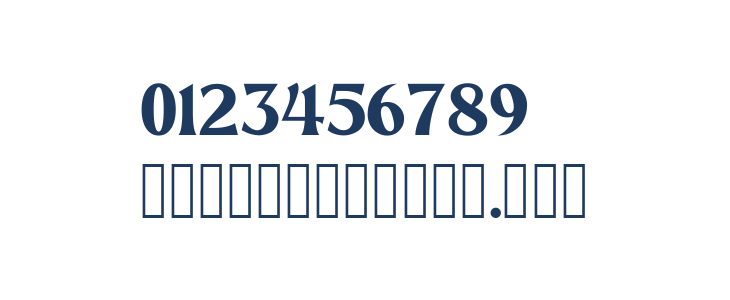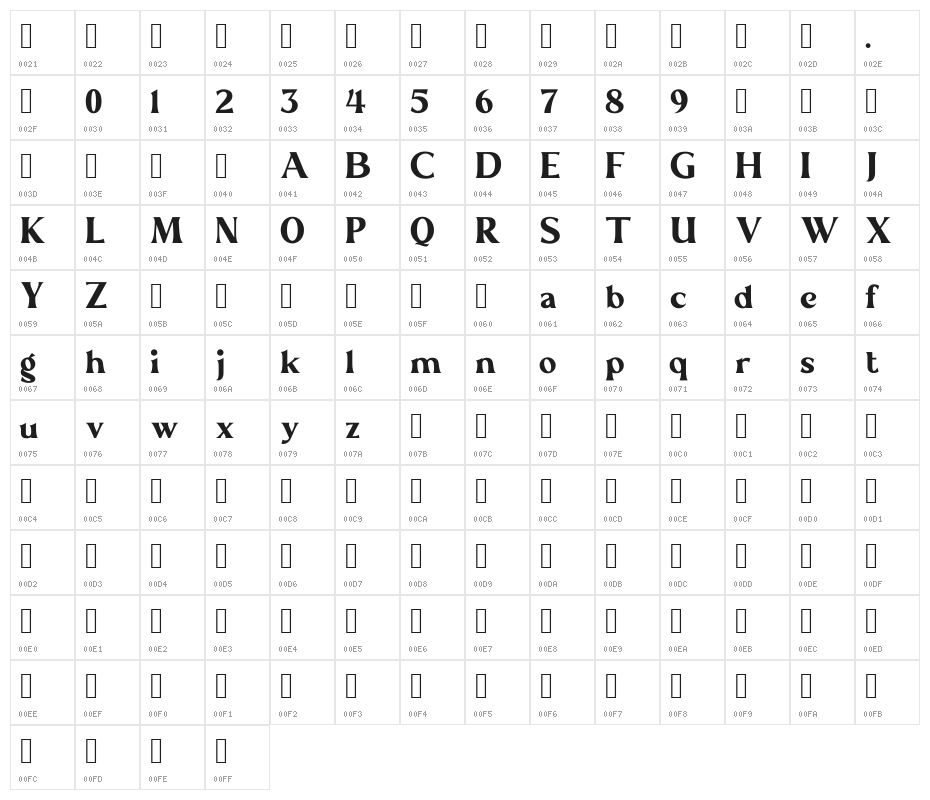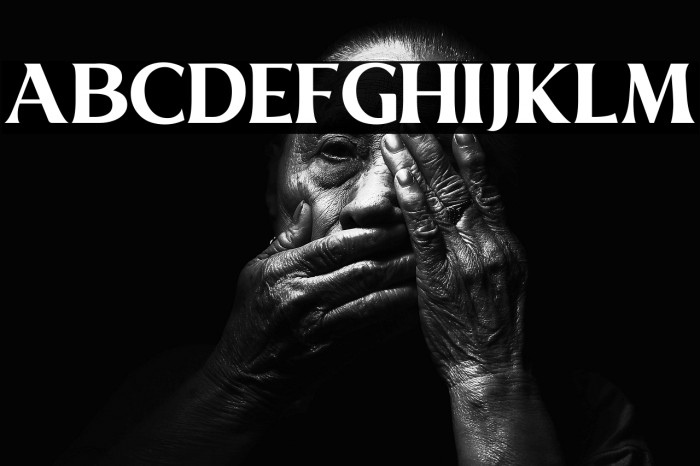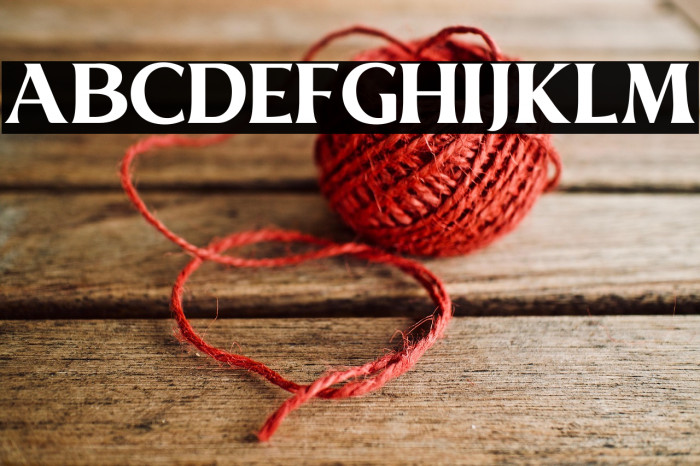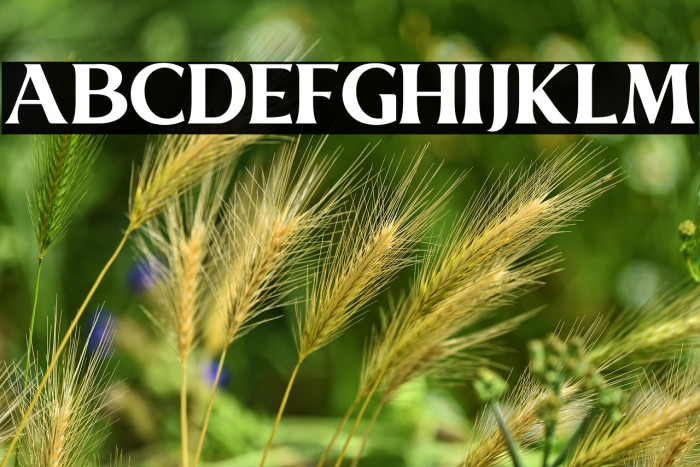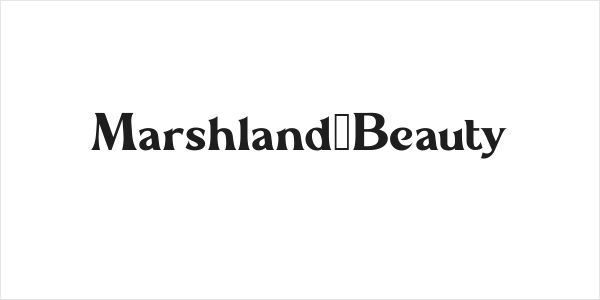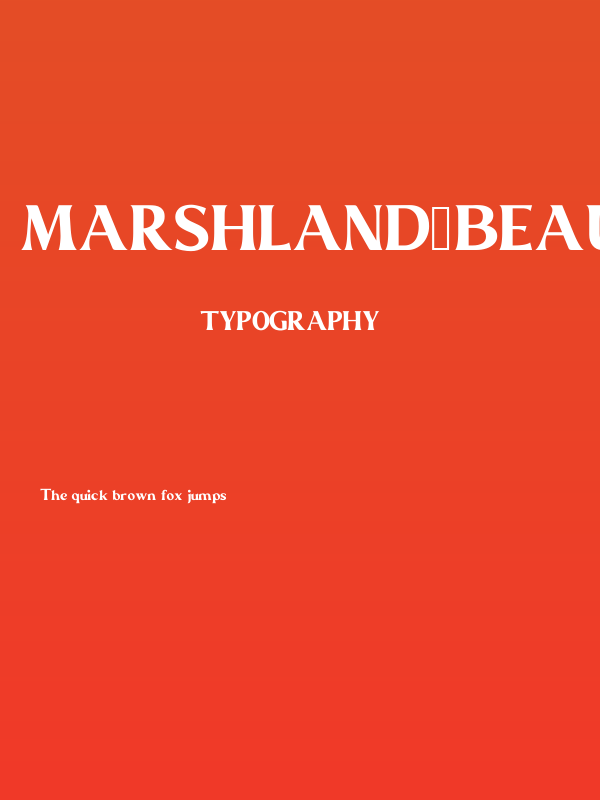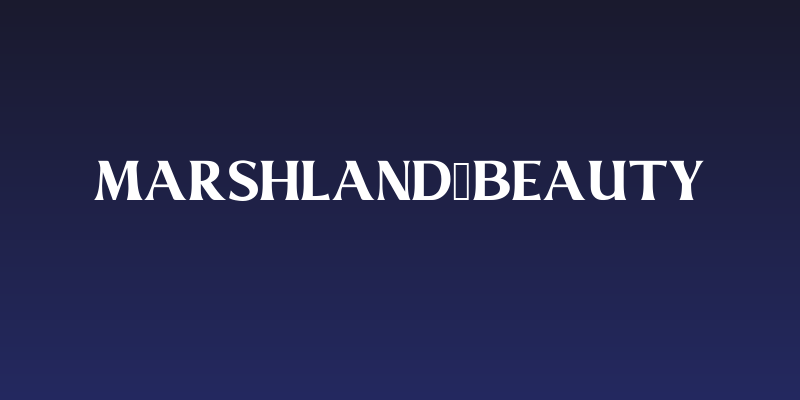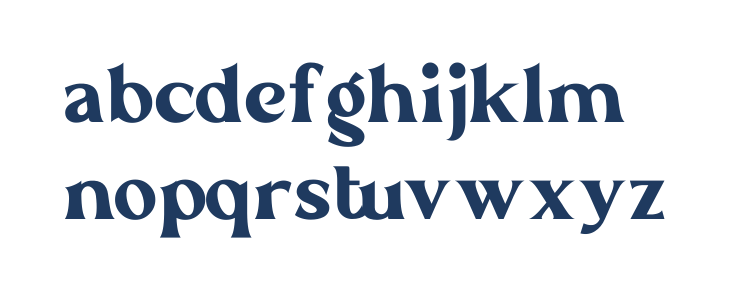
Marshland_Beauty Font
Marshland_Beauty Description
This font features a bold and dynamic style with a strong presence. The characters have a distinctive flair, with sharp serifs and a slightly condensed form that gives it a unique personality. The uppercase letters are particularly striking, with a commanding presence that is ideal for making a statement. The lowercase letters maintain the same boldness, ensuring consistency across text. The numerals are clear and robust, matching the overall aesthetic. Special characters are designed with the same attention to detail, making this font versatile for various uses.
| Proposed Projects | Ideal for branding projects, headlines, posters, and any design requiring a strong, impactful typeface. |